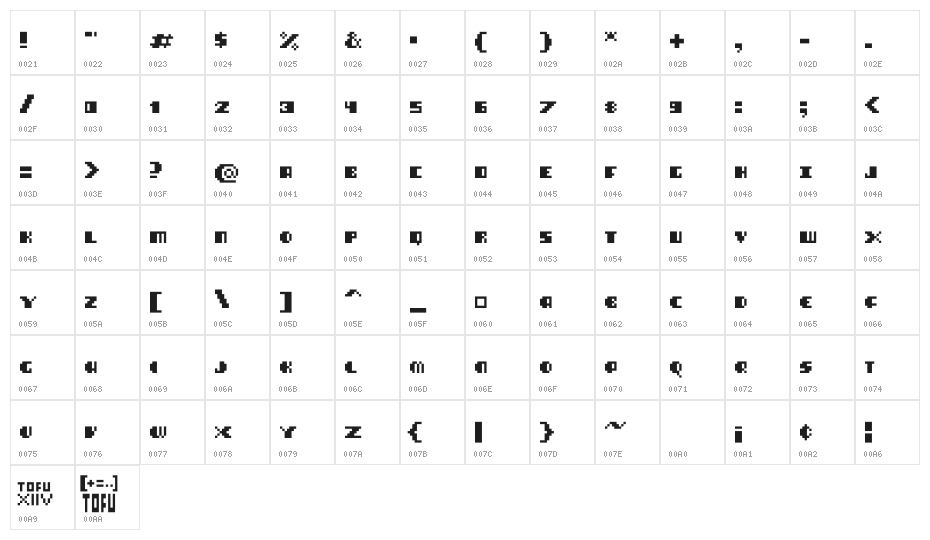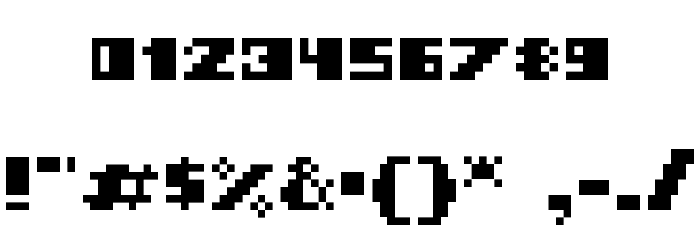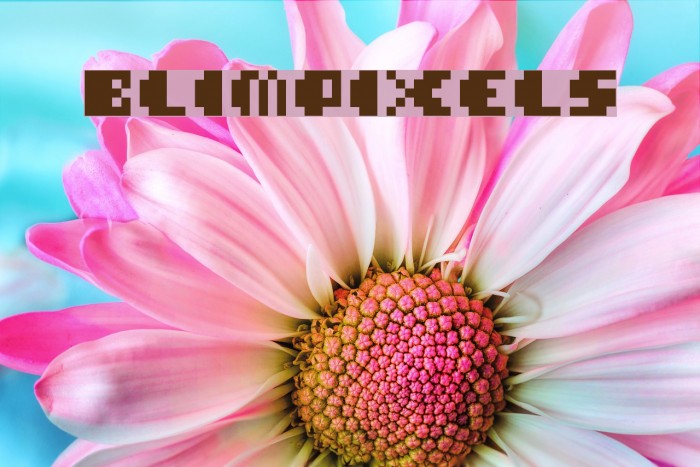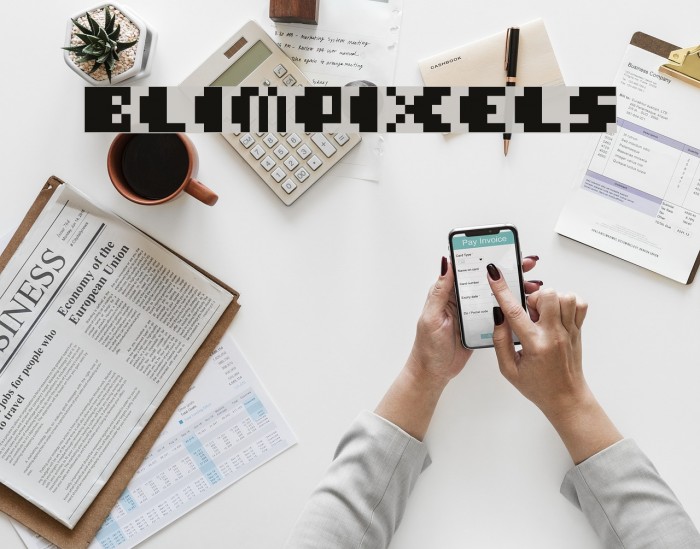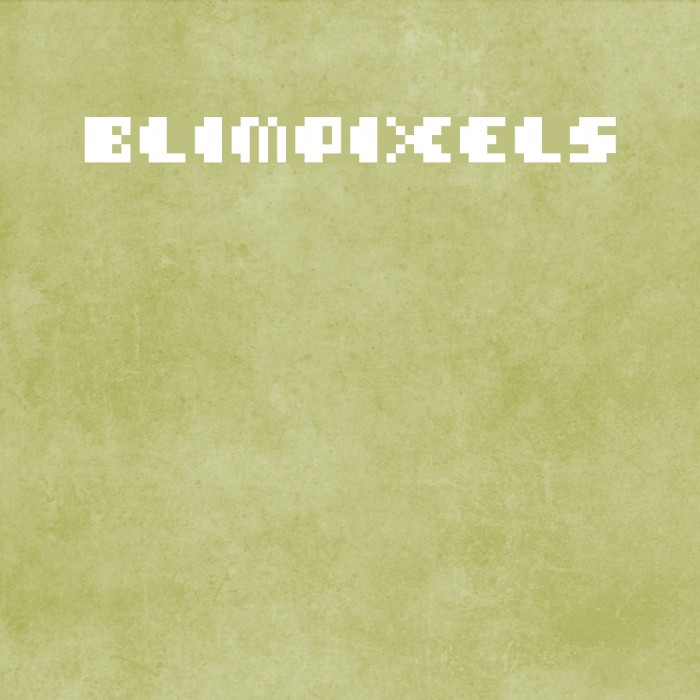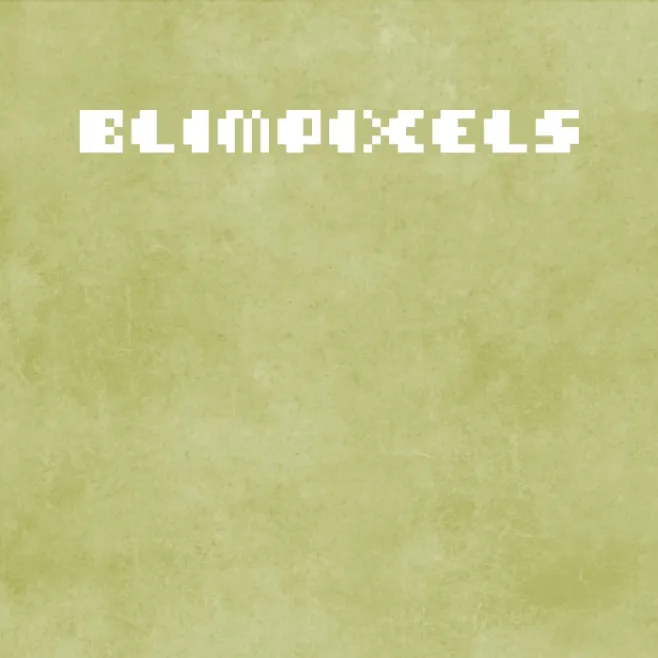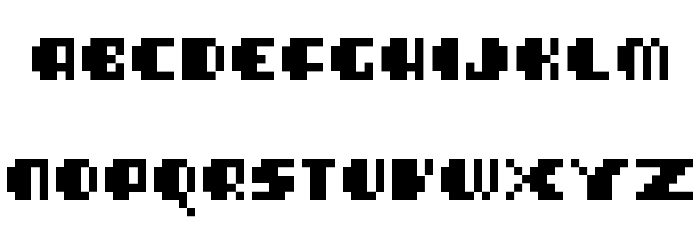
Blimpixels Font
Blimpixels Description
This font features a bold, pixelated design reminiscent of early digital displays and retro video games. Each character is constructed with a blocky, square appearance, giving it a distinctly digital and nostalgic feel. The uppercase and lowercase letters maintain a uniform height, enhancing the font's geometric consistency. Numbers and special characters follow the same pixelated style, ensuring a cohesive look across all glyphs. The font's simplicity and clarity make it highly legible, even at smaller sizes, while its unique style adds a playful and vintage touch to any design.
| Use Case | Headlines, Logos, Digital Art |
| Proposed Projects | Ideal for retro-themed designs, video game graphics, digital art projects, and any creative work seeking a nostalgic, digital aesthetic. |